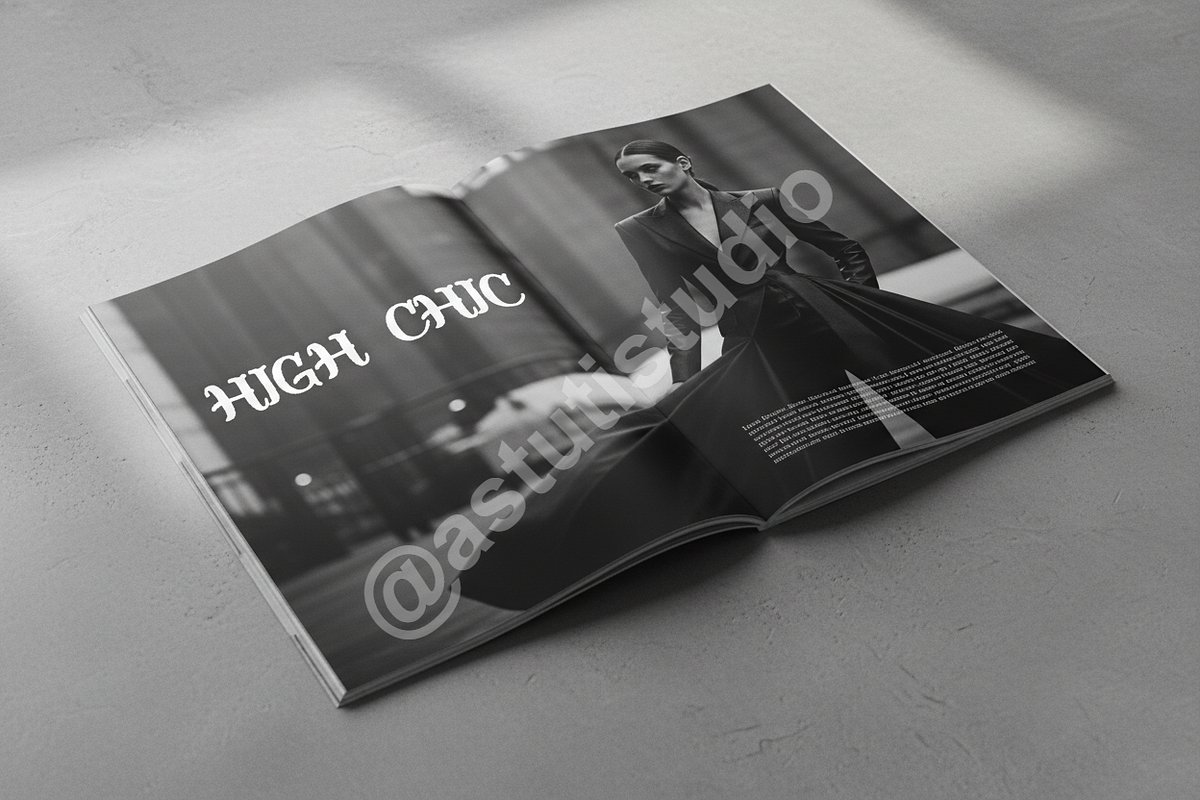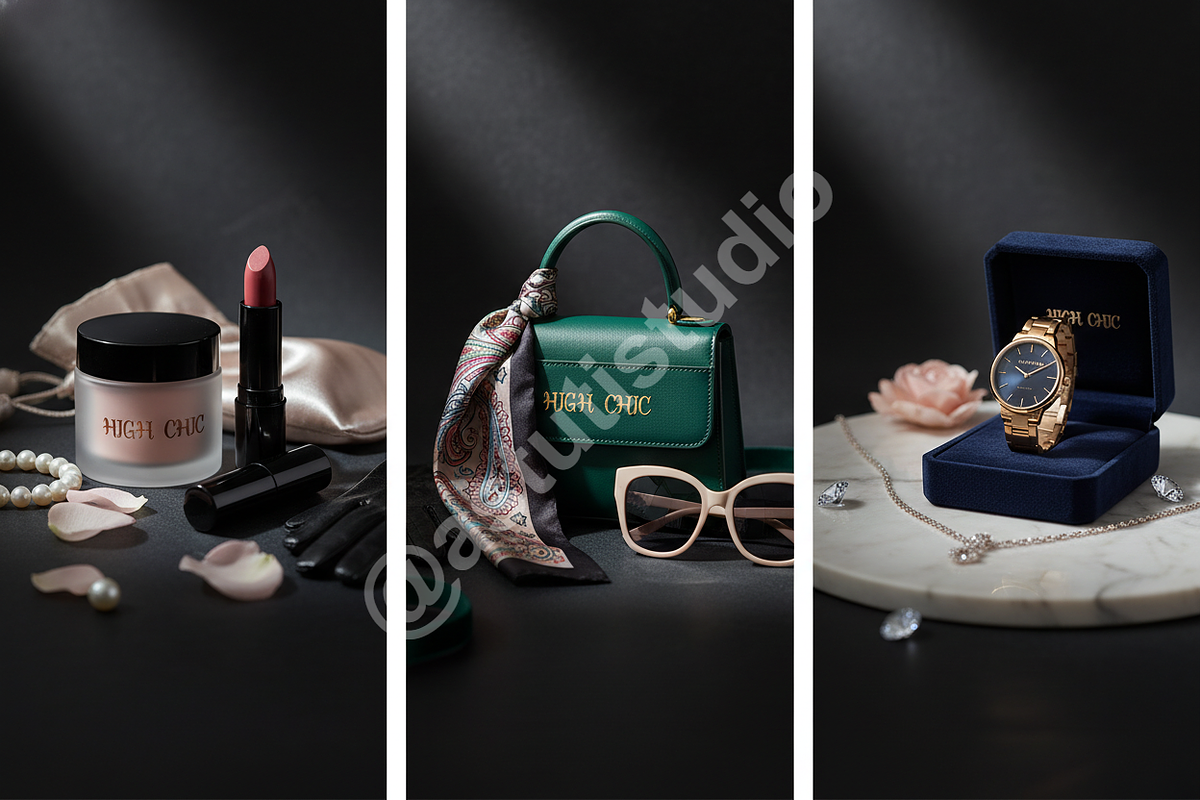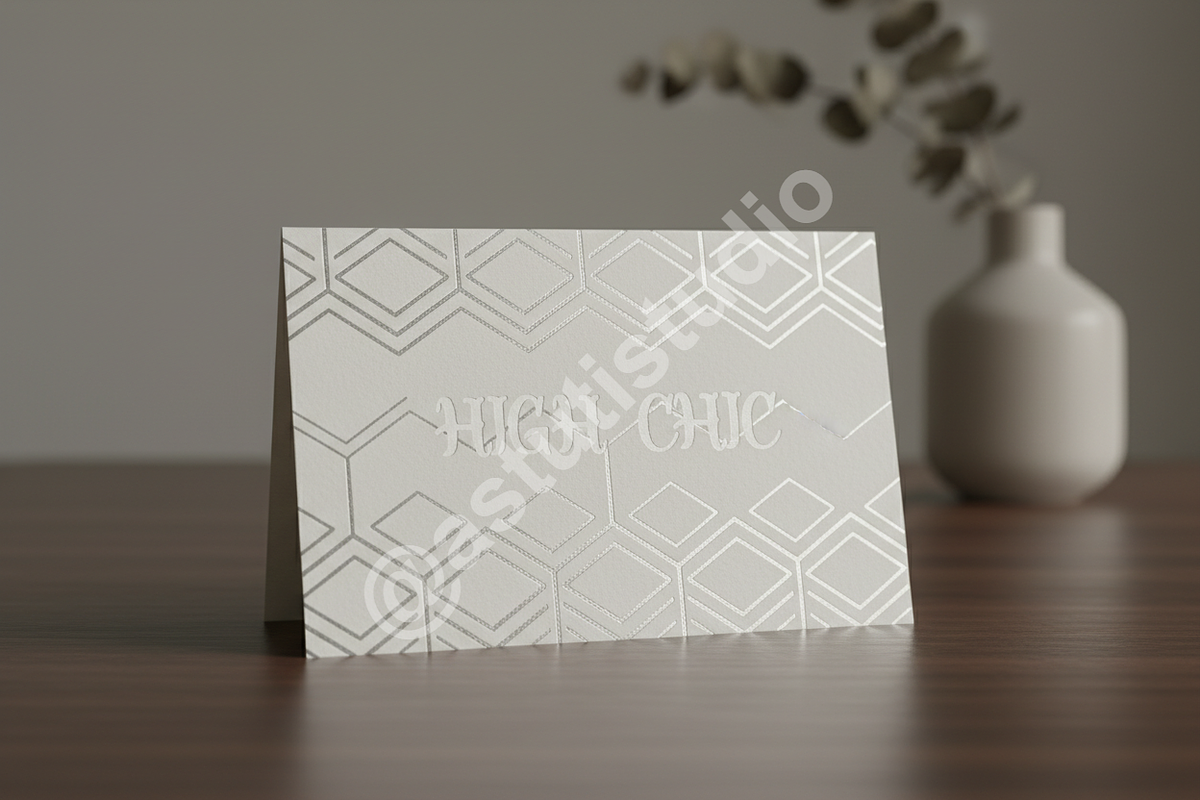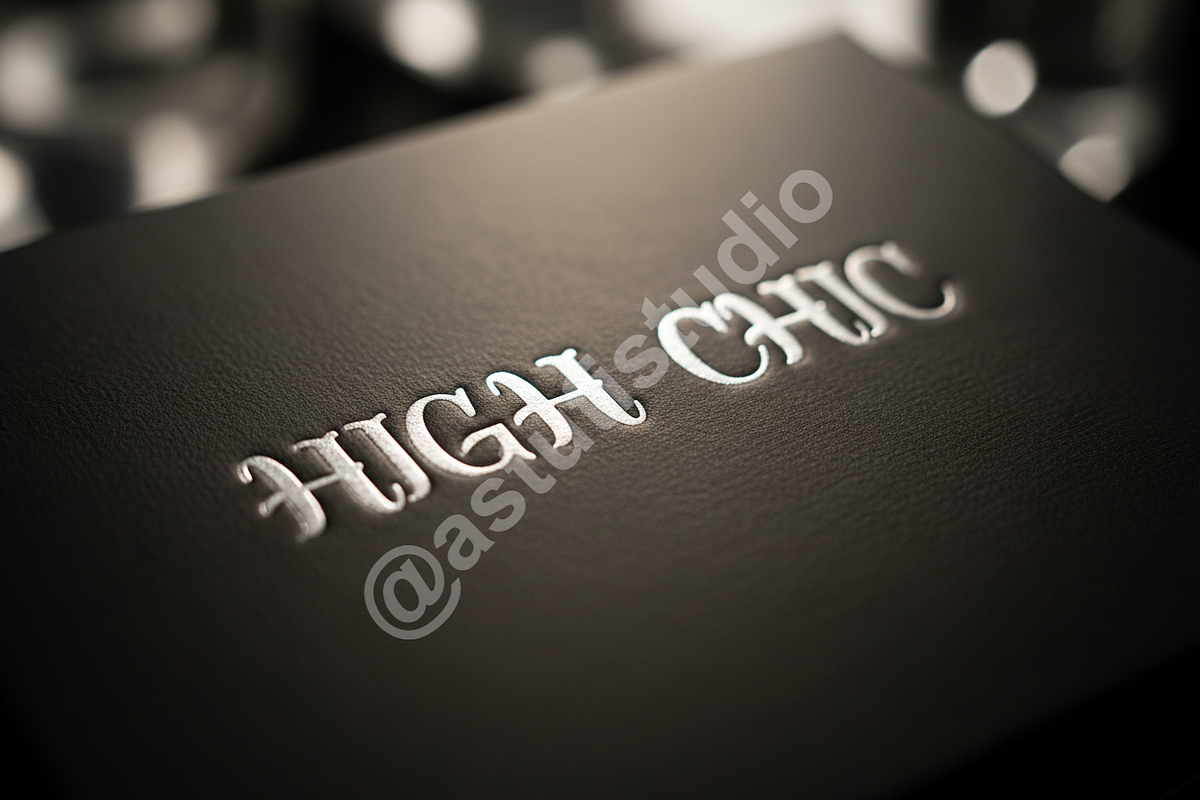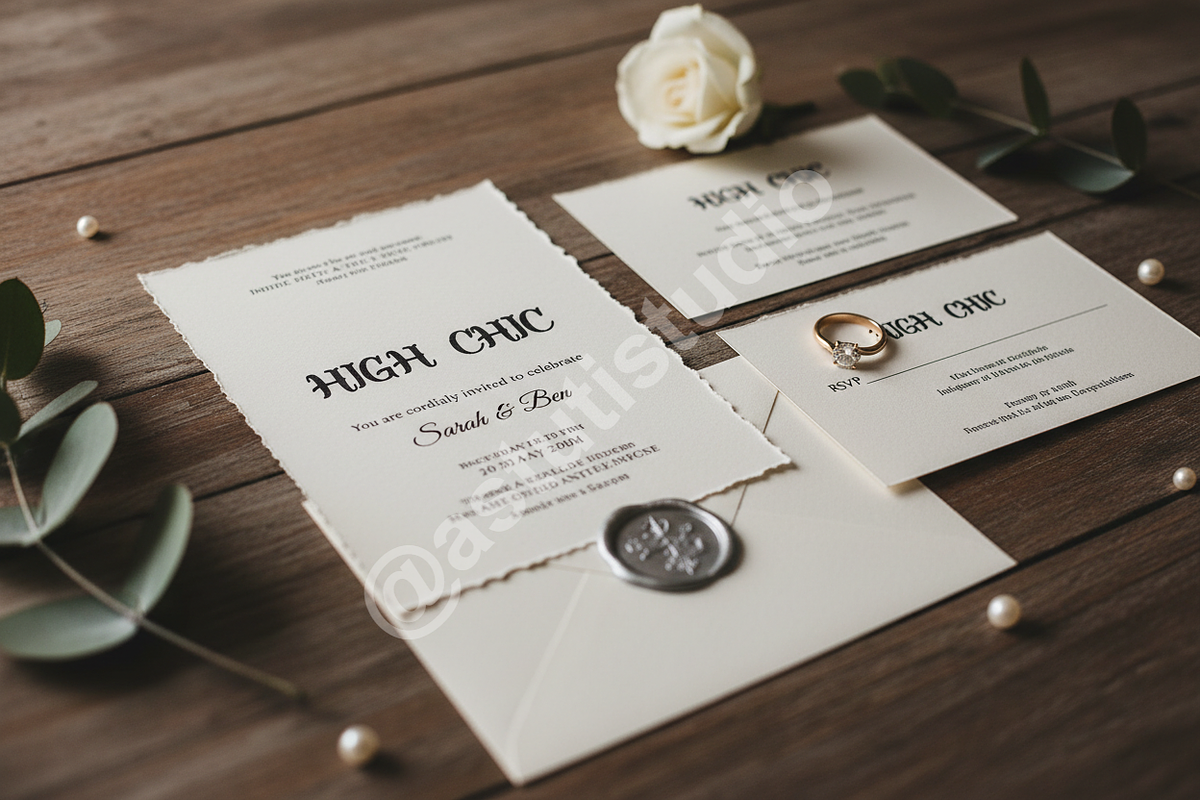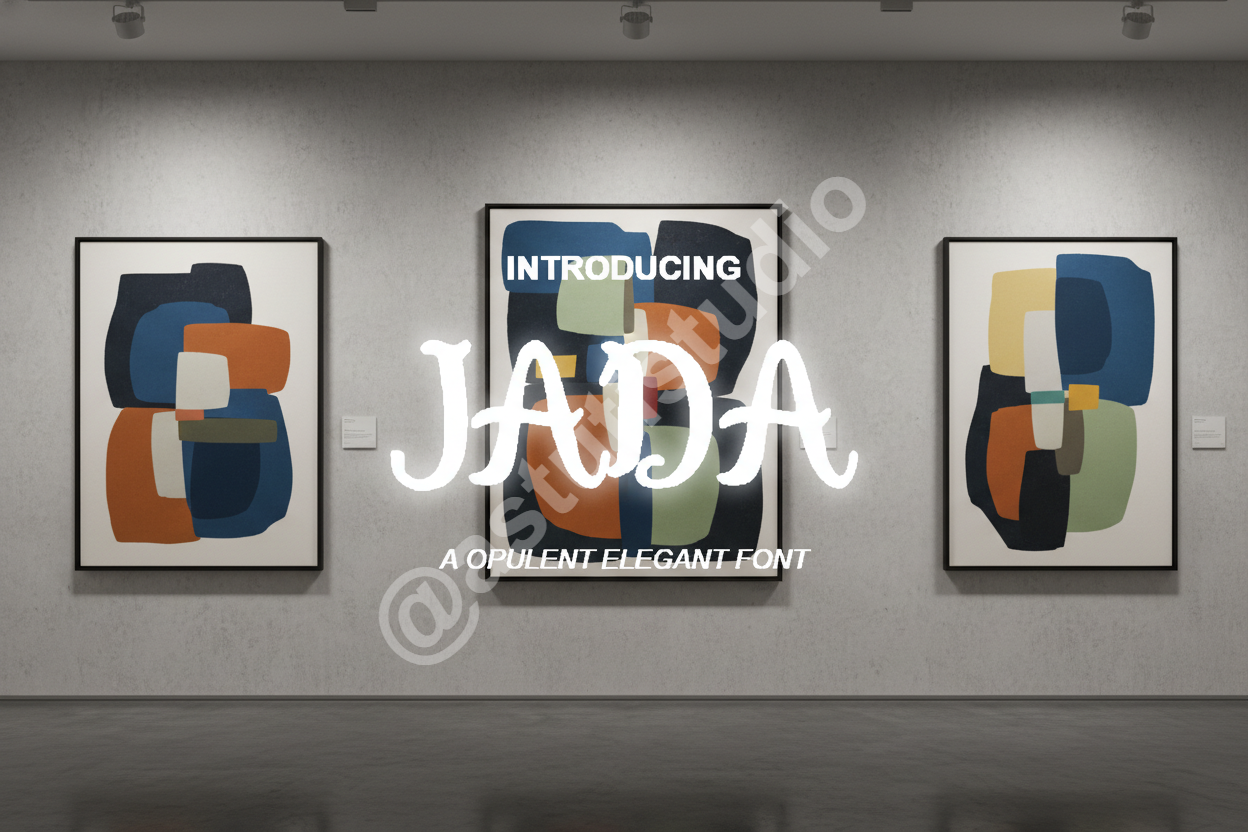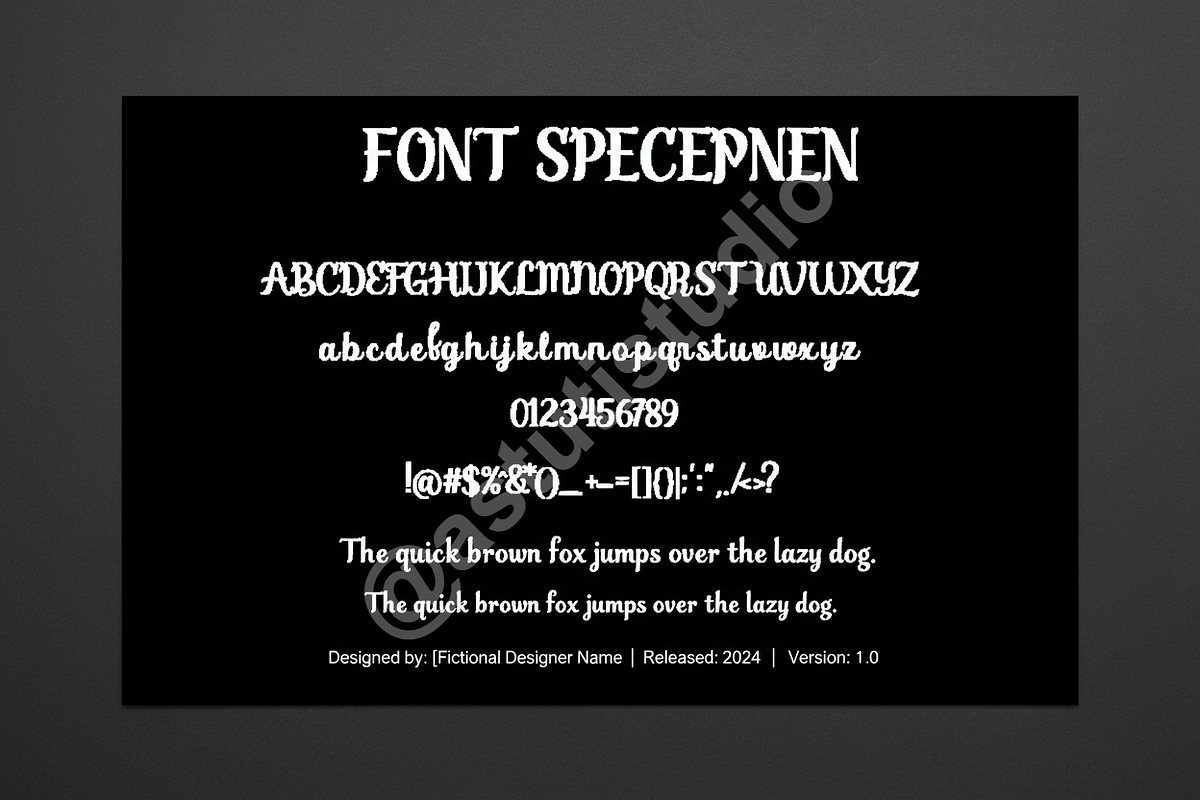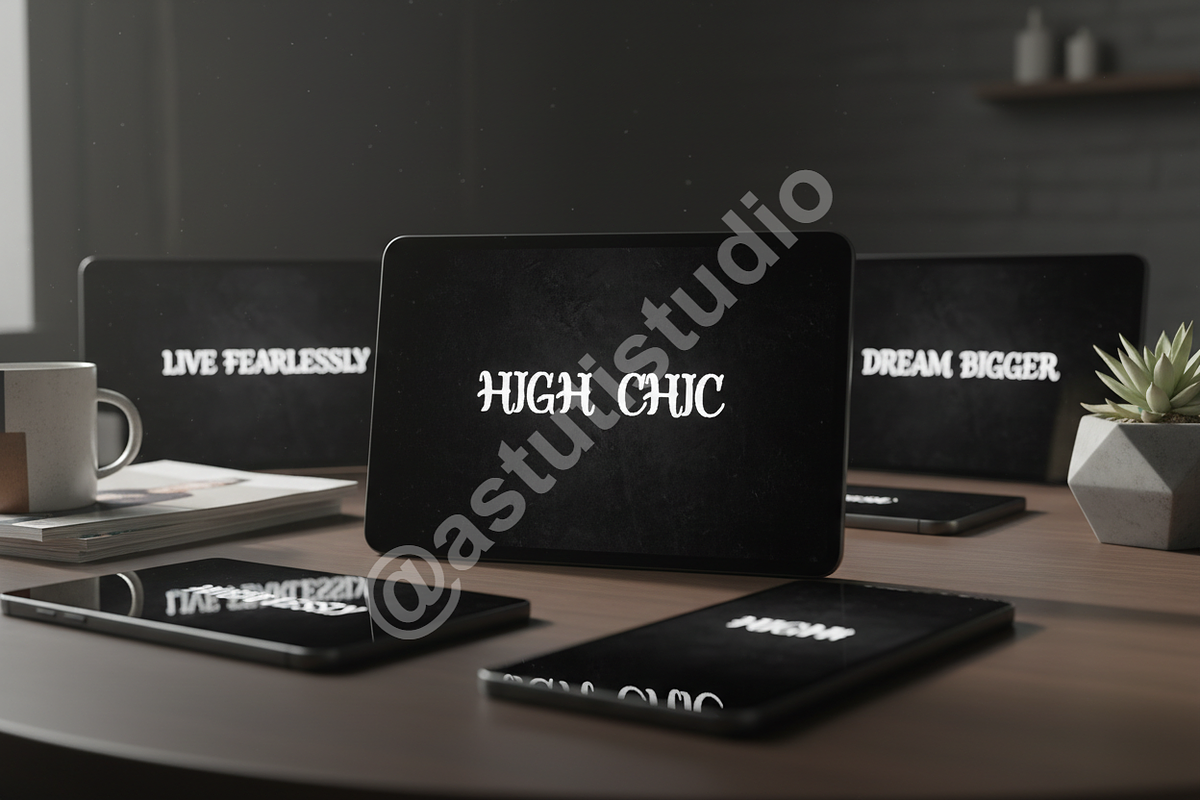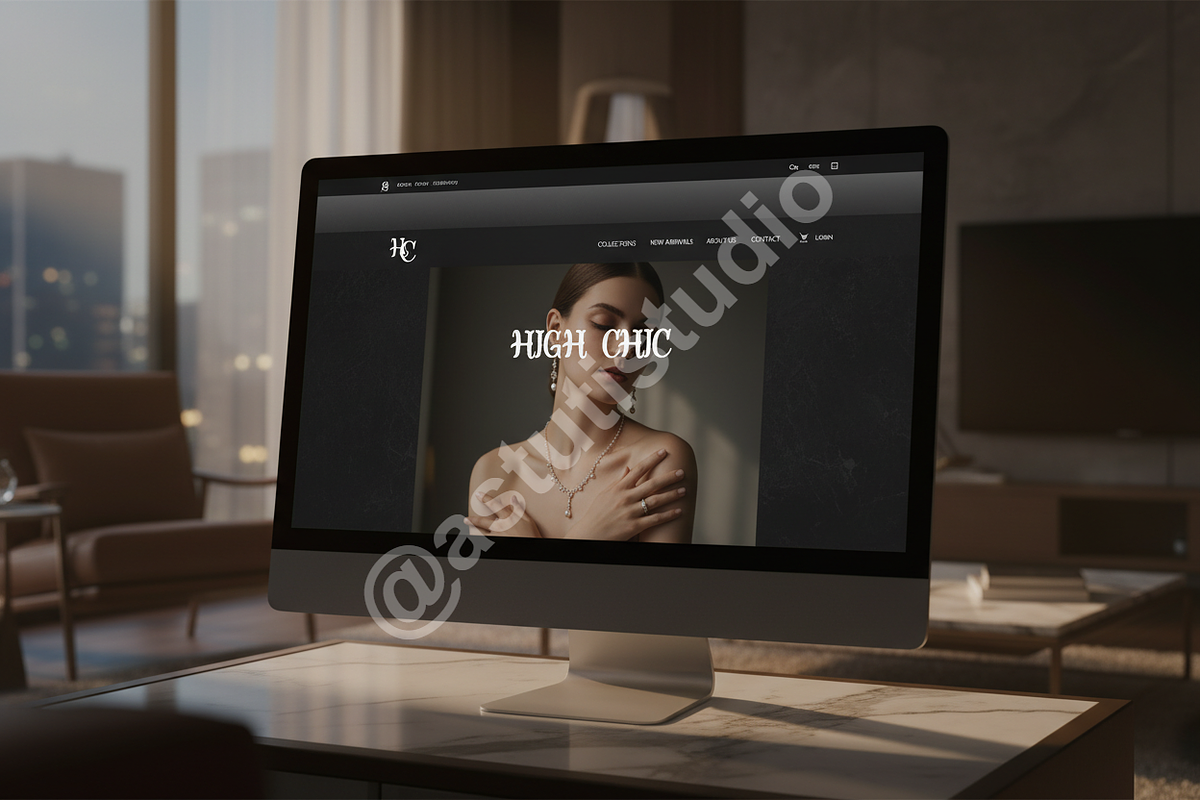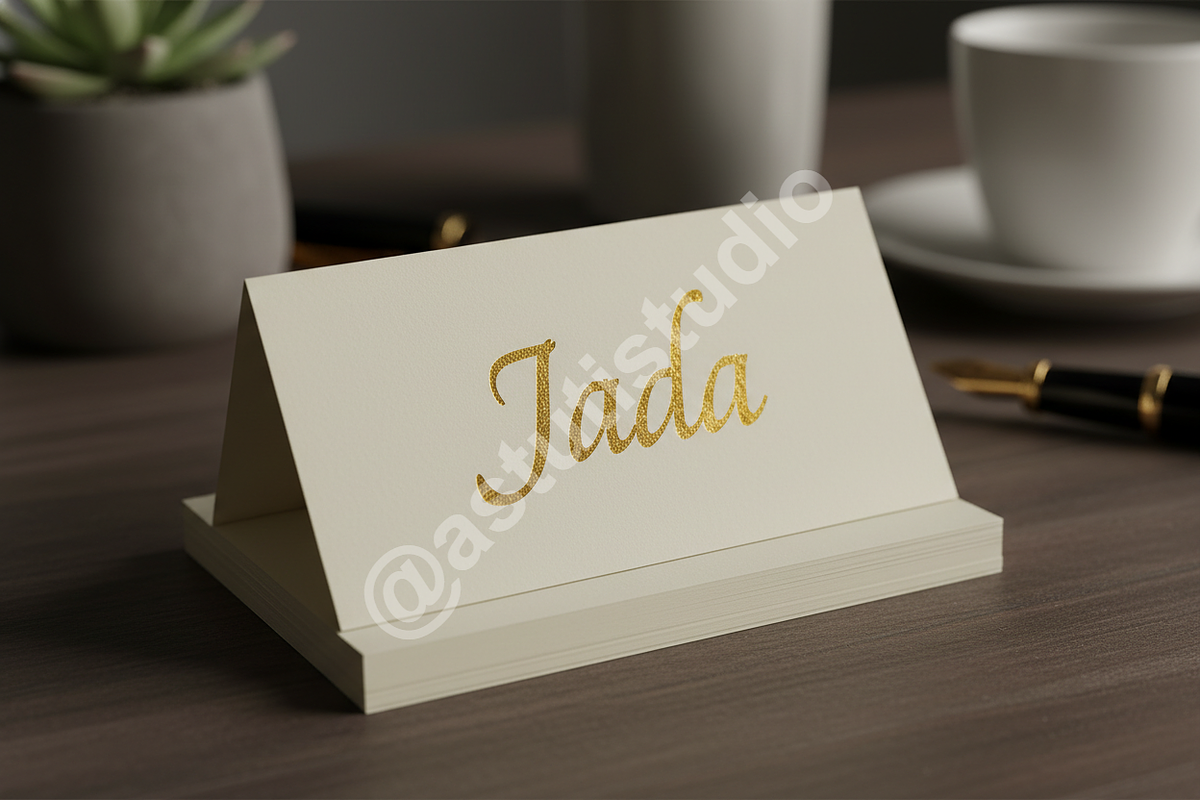
Jada | Elegant Serif Typeface for Lu
INTRODUCTION Elevate your design projects with Jada, a premium serif typeface crafted for high-end aesthetics. With its refined proportions and graceful curves, Jada embodies timeless sophistication. This font is designed for those who seek to balance classic elegance with a contemporary edge, making it an essential tool for your creative toolkit.
IDEAL FOR
- Luxury Branding and Identity
- High-fashion Editorial Layouts
- Elegant Social Media Content
- Premium Packaging and Print
- Wedding Invitations and Stationery
- Sophisticated high-contrast strokes for a premium feel
- Unique discretionary ligatures for custom-look typography
- Extensive multilingual character support for global reach
- Optimized kerning for professional-grade legibility
- Clean, sharp serifs that perform beautifully at large and small sizes